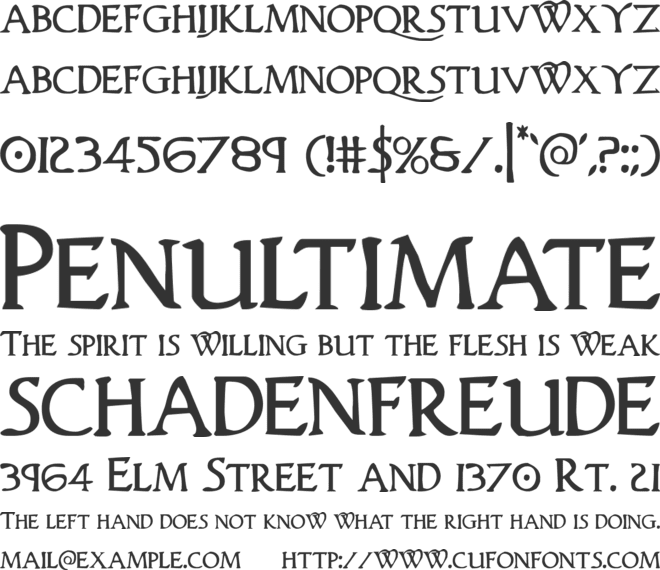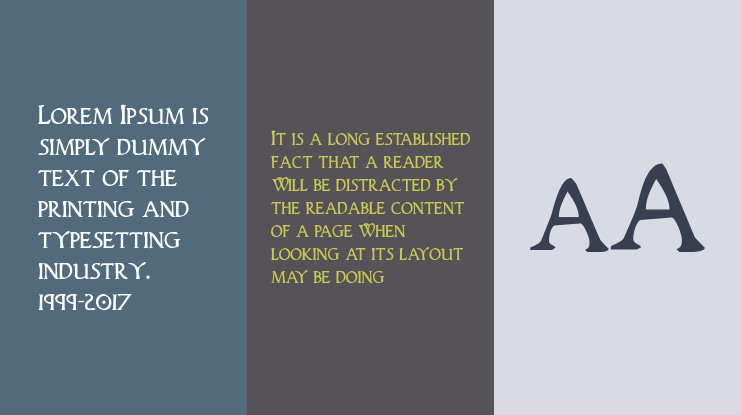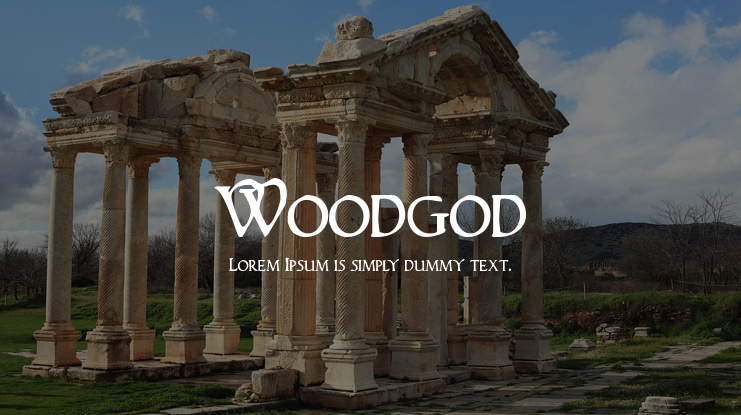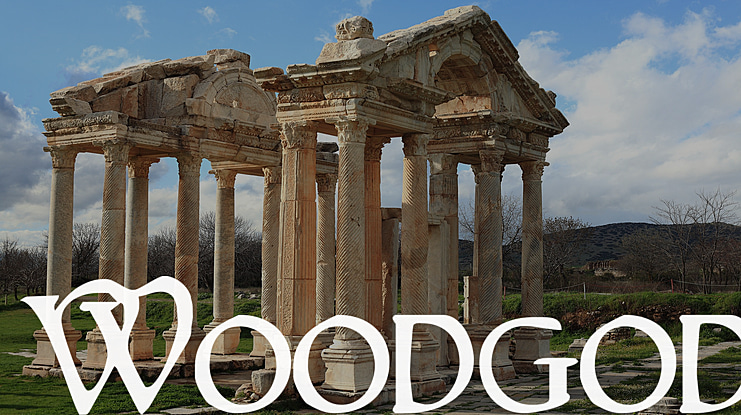
Woodgod Font Family
An eerie looking Latin font, Comes with a full Latin character set and the Euro. For information on commercial usage, please visit www.iconian.com/commercial.html